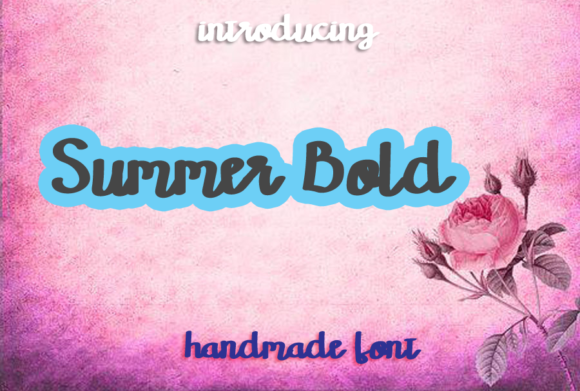
In a world of digital expression, where words take flight, let Summer Bold be your muse, your artistic brushstroke painting stories on the canvas of your designs. Meet the font that dances gracefully, a symphony of curves intertwining, effortlessly capturing the essence of elegance and ease. Created by the ingenious minds at RR Studio, Summer Bold is the perfect choice for those seeking a touch of charm and a splash of vibrancy in their projects.
This captivating script font evokes the warmth of a summer's day, its flowing lines resembling the gentle caress of a warm breeze. Each character seems to come alive, exuding a sense of joy and playfulness, inviting you to explore the endless creative possibilities that await.
Whether you're crafting heartwarming invitations, designing captivating logos, or adding a touch of whimsy to your social media posts, Summer Bold is the perfect companion. Its versatility knows no bounds; it dances effortlessly on wedding invitations, branding materials, and social media graphics alike.
With Summer Bold, you'll find yourself immersed in a sea of creativity, where your imagination sets sail and your designs take flight. Its inherent charm and playful spirit will leave an indelible mark on the hearts of your audience, captivating them with its effortless allure.
Summer Bold is more than just a font; it's an invitation to let your creativity soar, to embrace the unexpected, and to create designs that leave an unforgettable impression. Dive into the world of Summer Bold and let your imagination bloom!